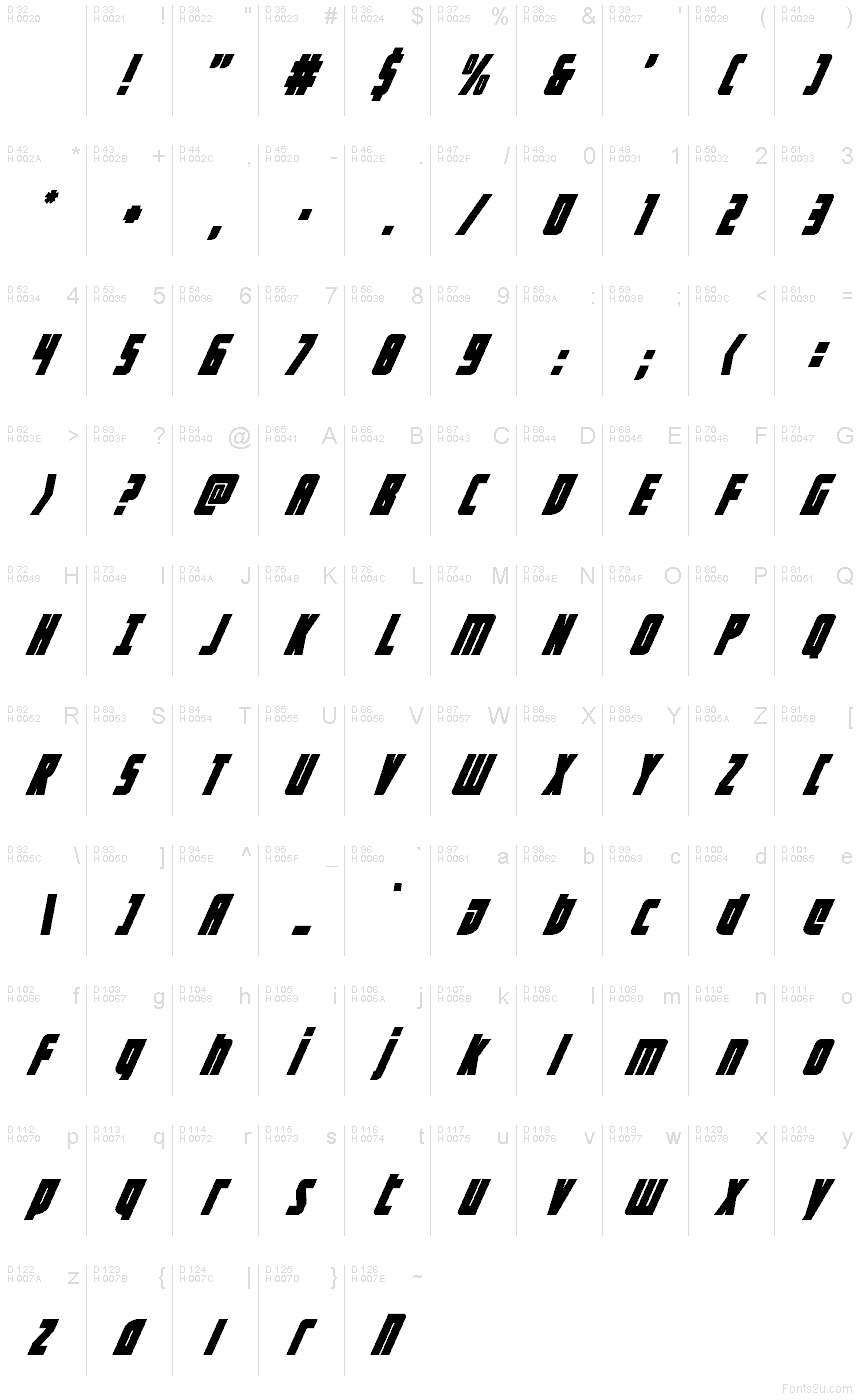
Impact Wrench Super-Italic
Impact Wrench Super-Italic font by Iconian Fonts is a modern display font inspired by the future. The condensed font features sleek, italicized characters that are assertive, angular, and hard to miss. Its design style showcases interesting sharp angles which contrasts with its smooth letter lines.
Impact Wrench Super-Italic is free and can be used in all kinds of futuristic projects from posters to advertisements or book covers. Design business cards with a professional touch or labels for specific products using it; the font also fits into web designs and video game designs.